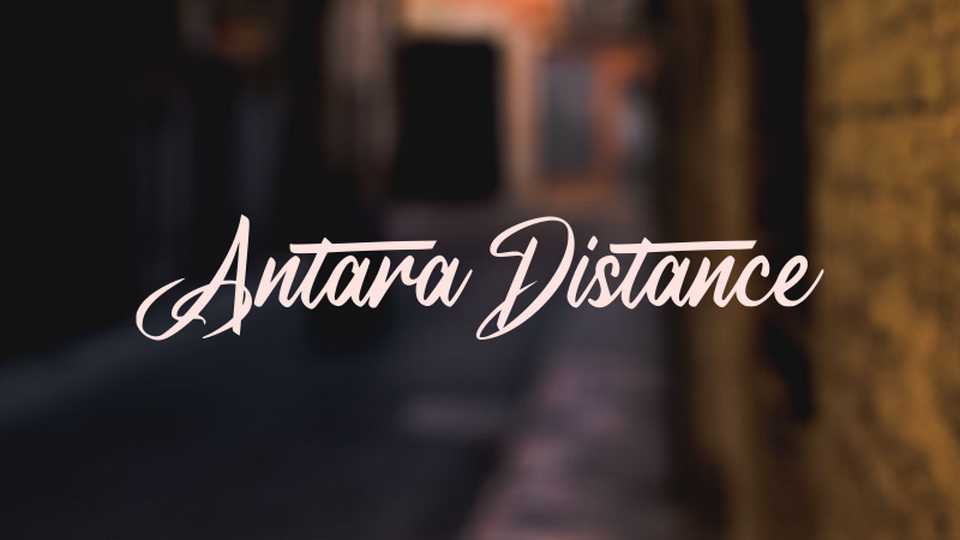
Download Antara Distance font, a beautiful modern calligraphy script with an elegant flow. Antara Distance font is perfect for wedding designs, letters and cards, social media and more.
Designer: Wahyu Eka Prasetya